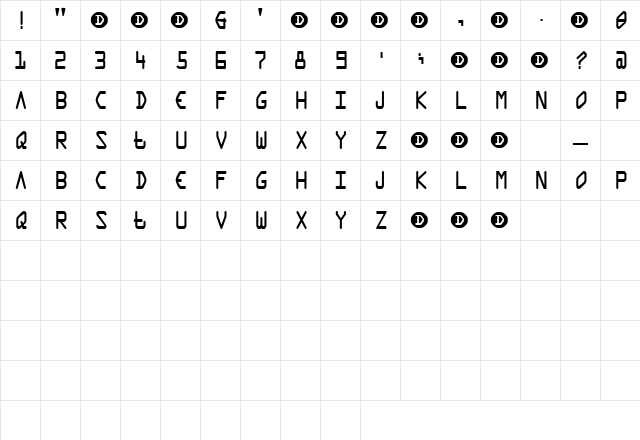
24Track Regular
Design Context for 24Track
24Track is a composed and adaptable typeface that performs quietly and consistently across a wide range of design contexts.